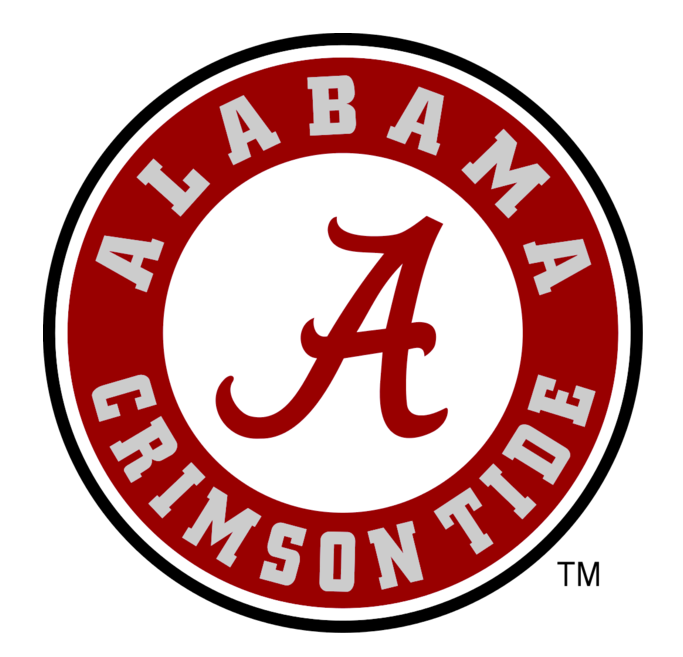
Alabama Crimson Tide Font
Fonts in UseThe Alabama Crimson Tide is a dominant college football team representing the University of Alabama, known for its storied history, multiple national championships, and consistent success under head coach Nick Saban.
The text surrounding the circle in the Crimson Tide logo appears to be a bold slab serif font such as City Bold from Berthold or Square Slabserif 711 by Bitstream. The initial "A" in the script is likely a custom design rather than a specific font.